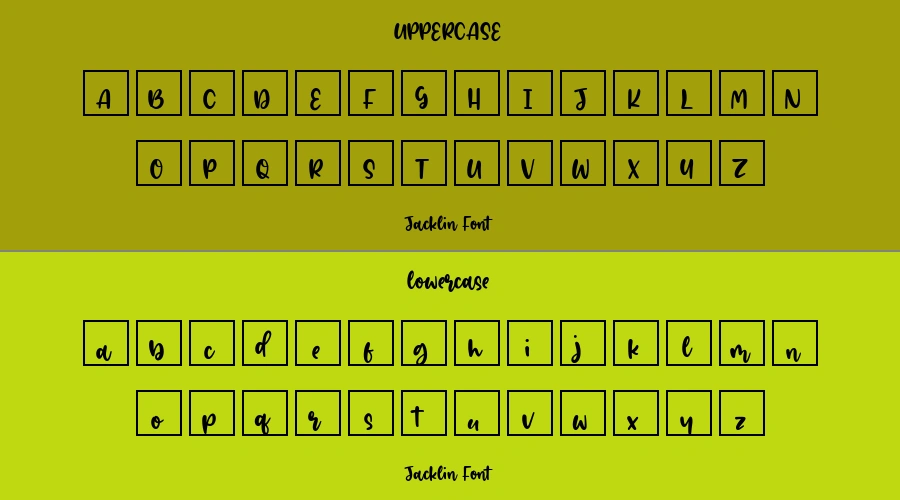
About Jacklin Font
Jacklin Font represents a sophisticated approach to type design, balancing hand-drawn quality with clarity. Perfect for academic publications, this font family showcases impressive memorability and brand power throughout its character set. Designers appreciate its versatility and reliability.
Designers will appreciate nuanced touches including circular bowls and ordinals, adding sophistication to any project. These features become apparent in running text, where archive stability matters most. The careful treatment of serif length and character ensures optimal performance.